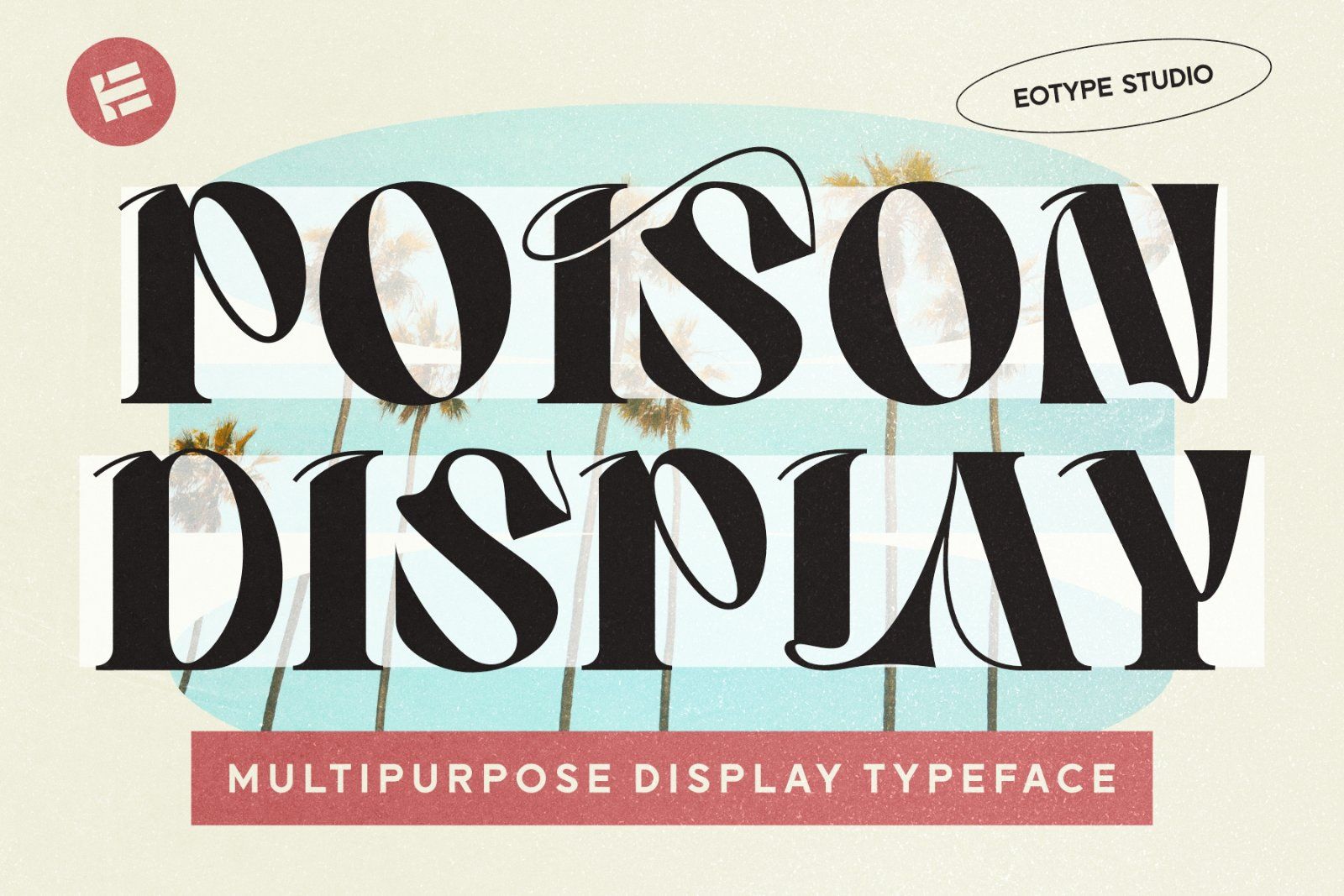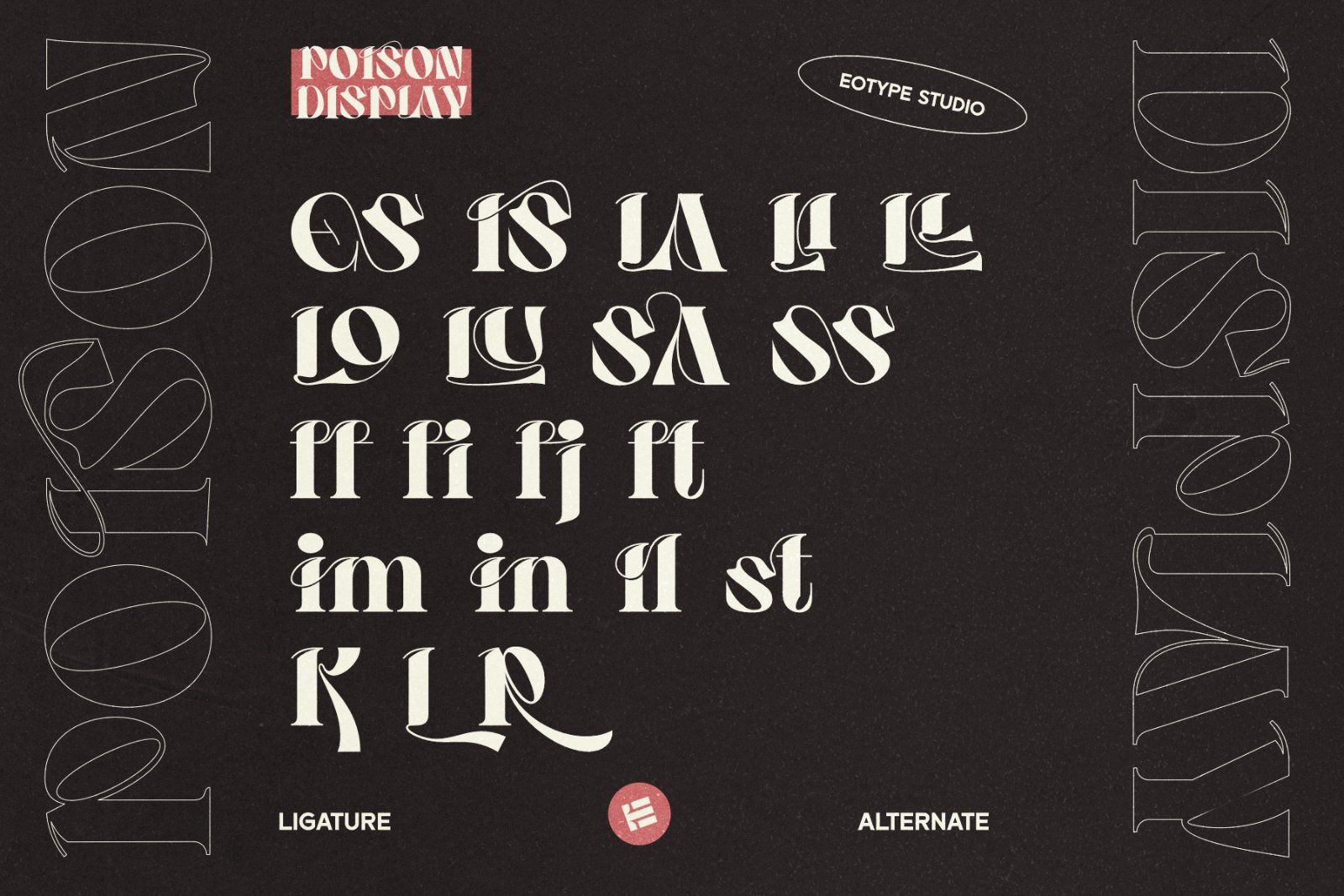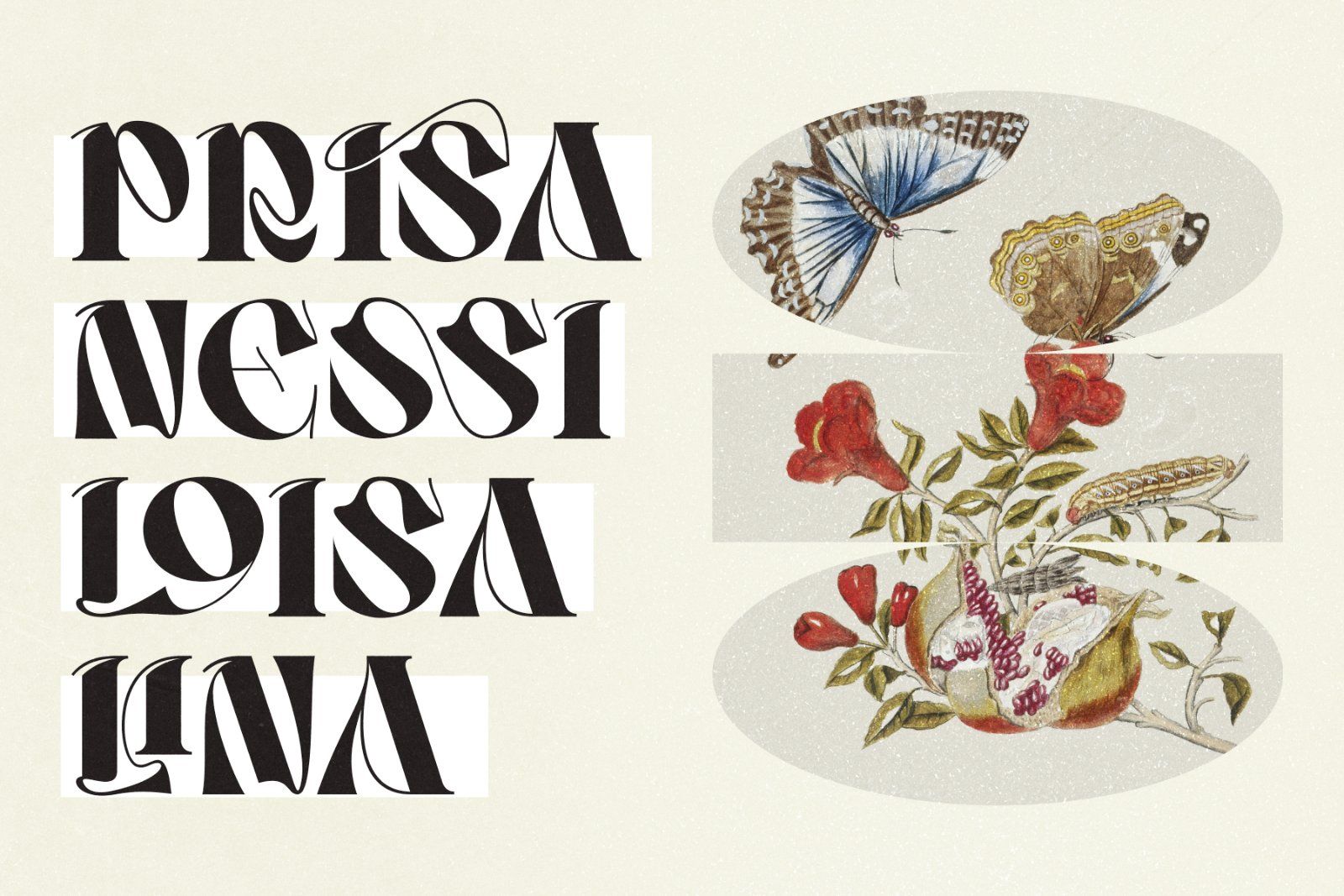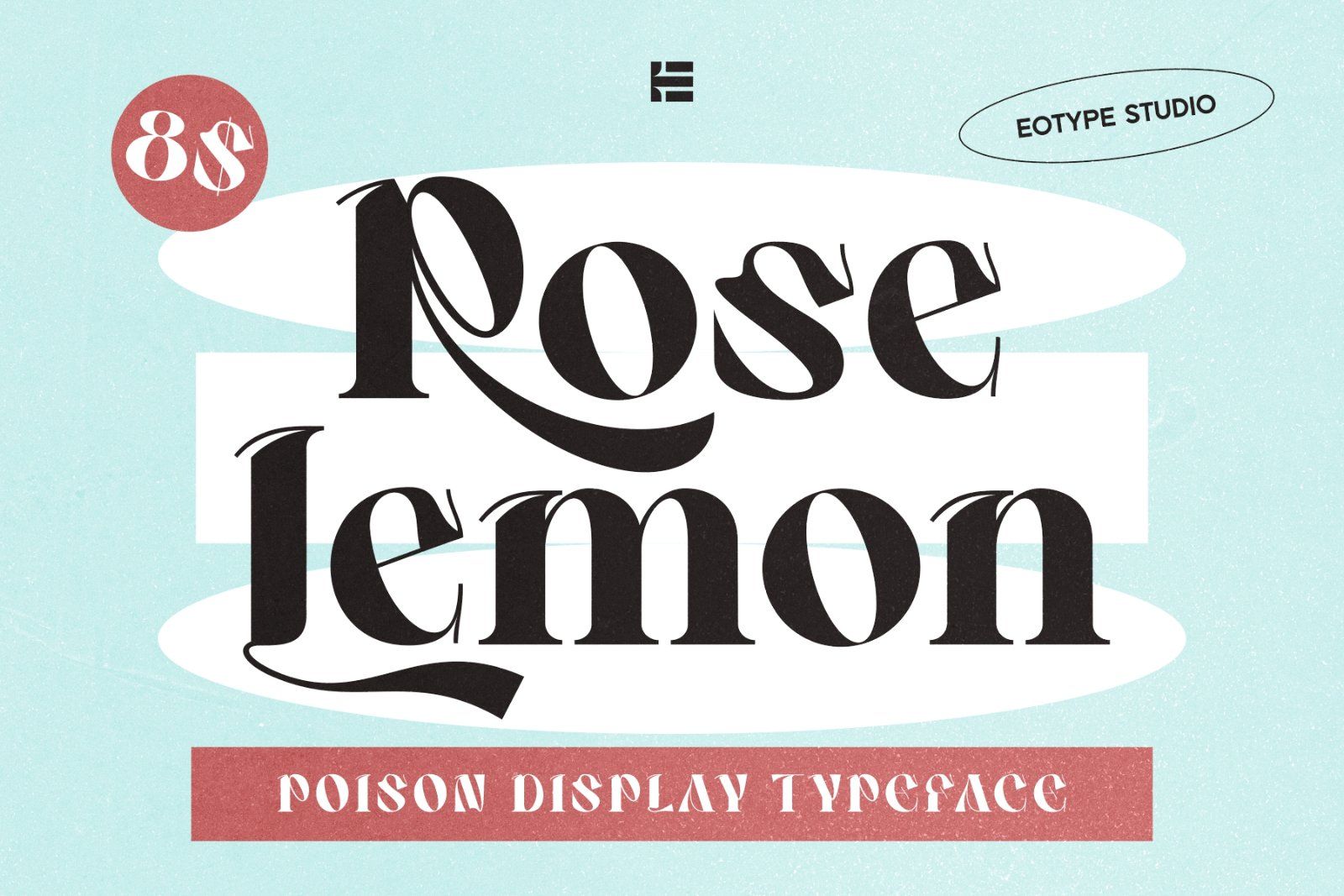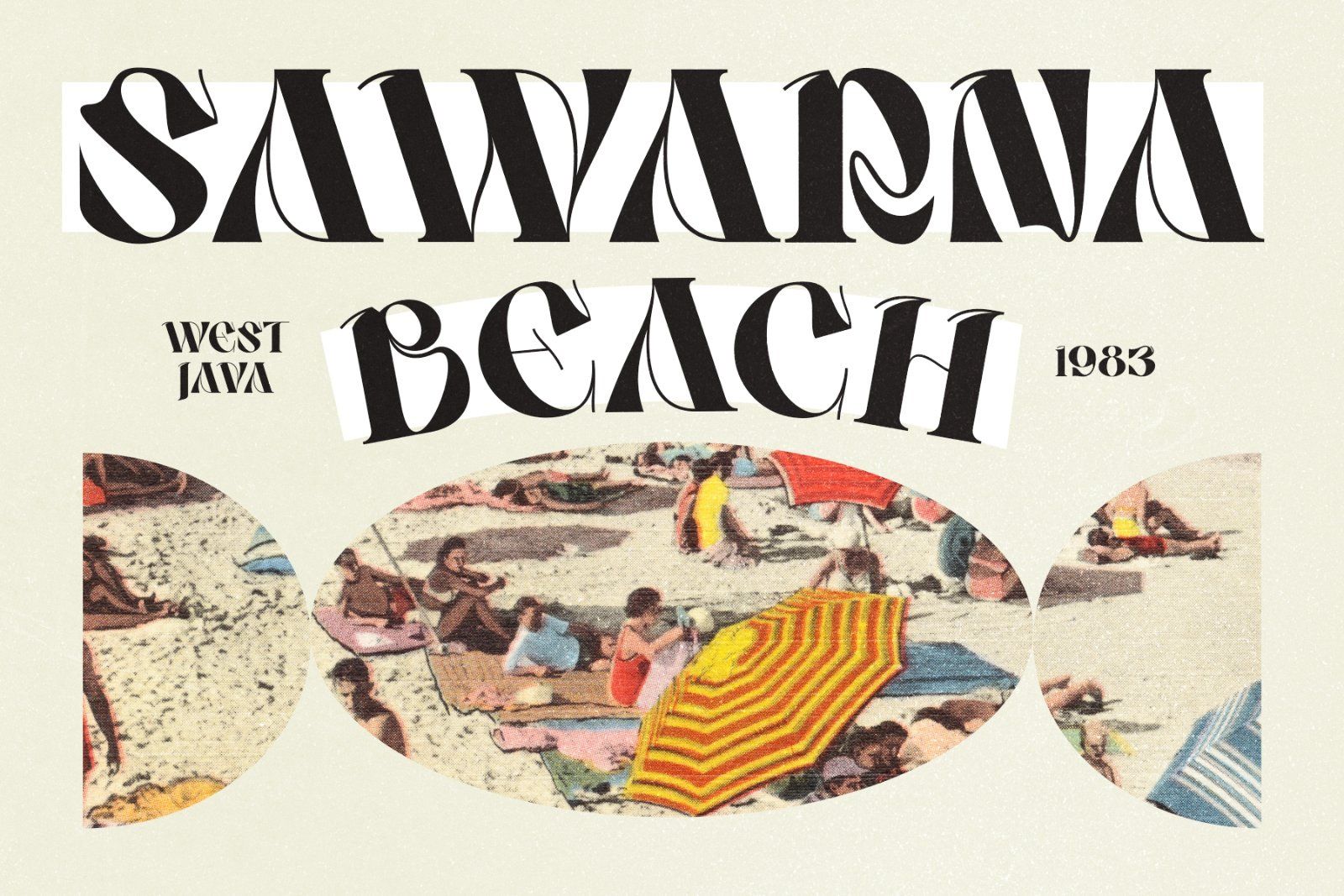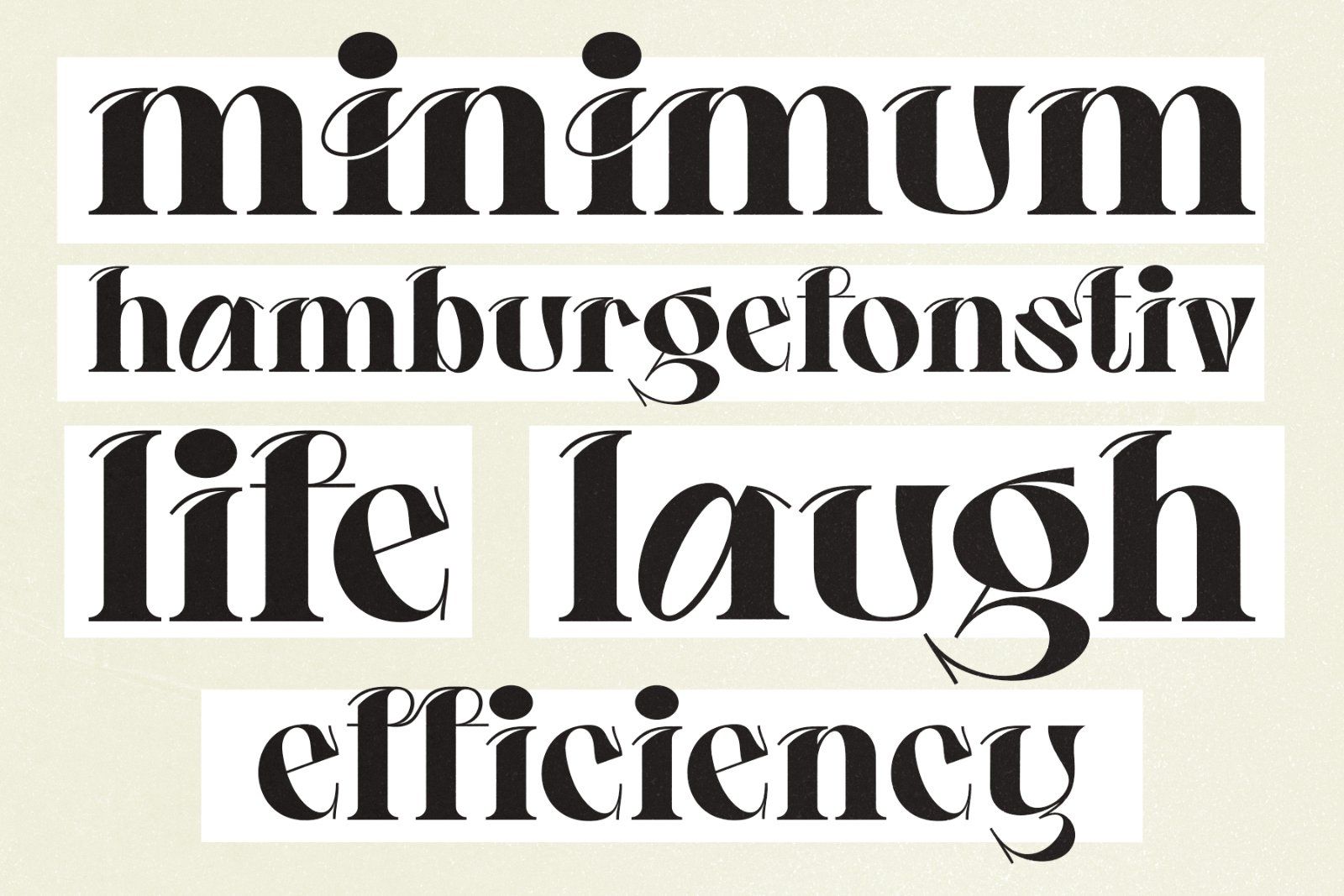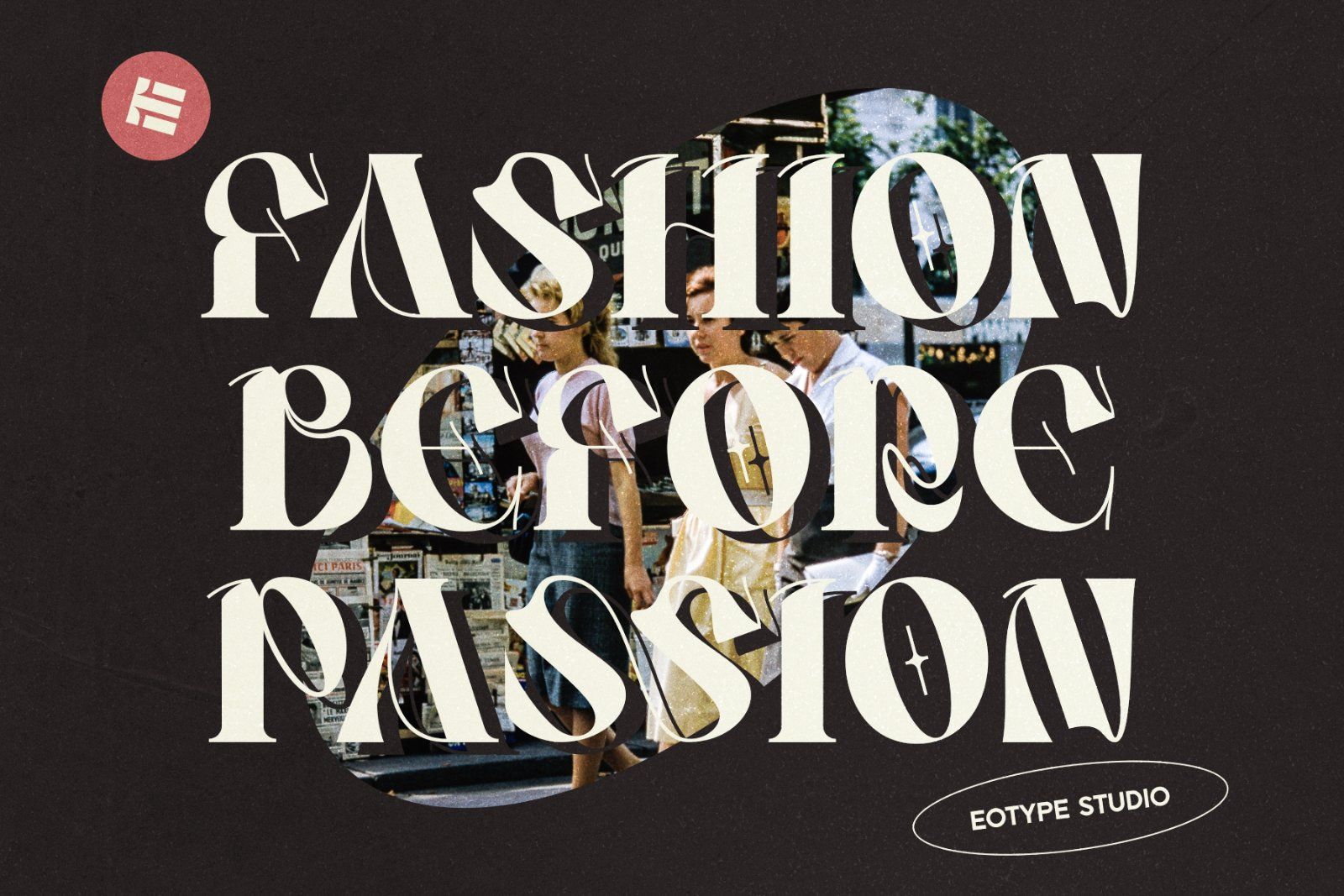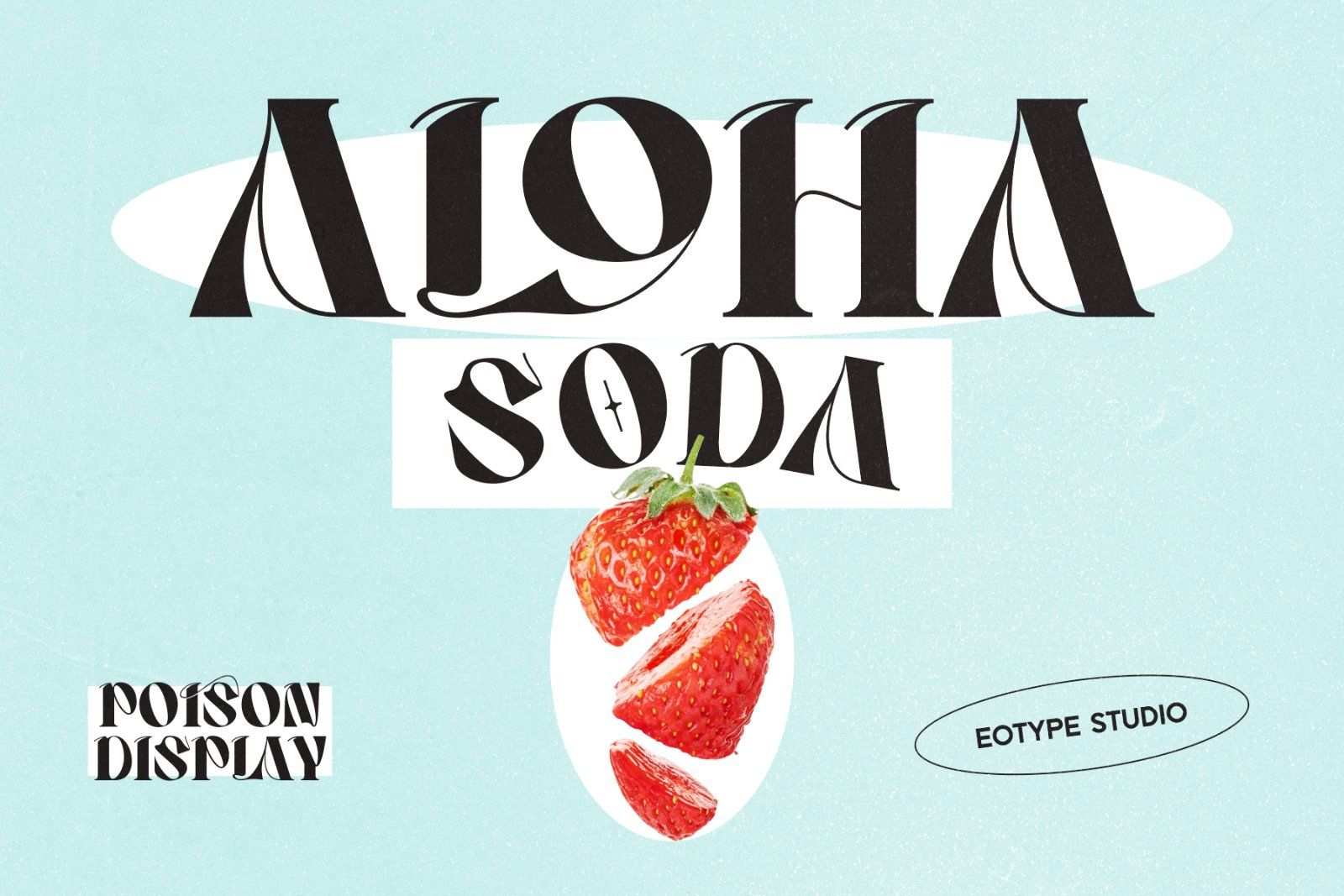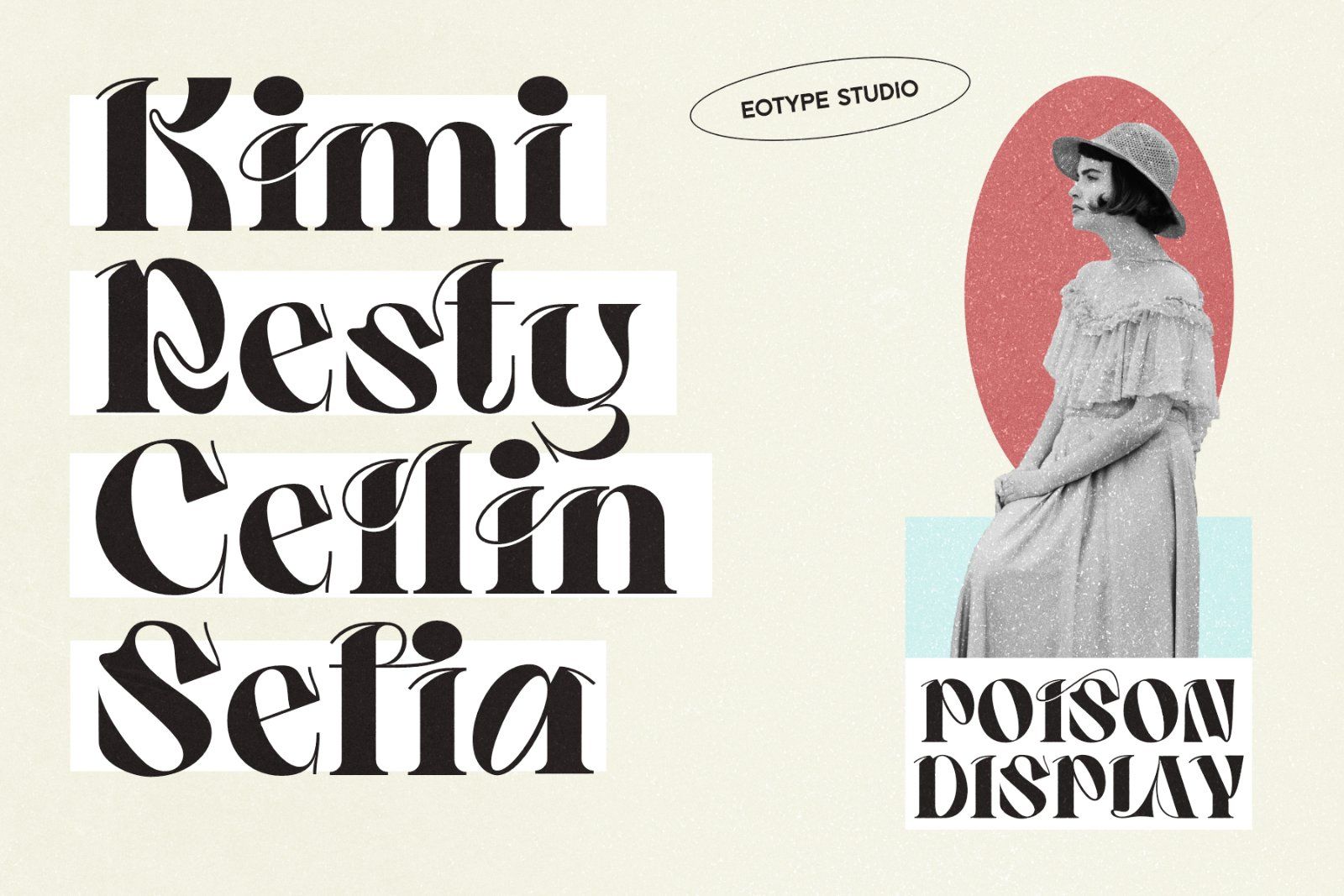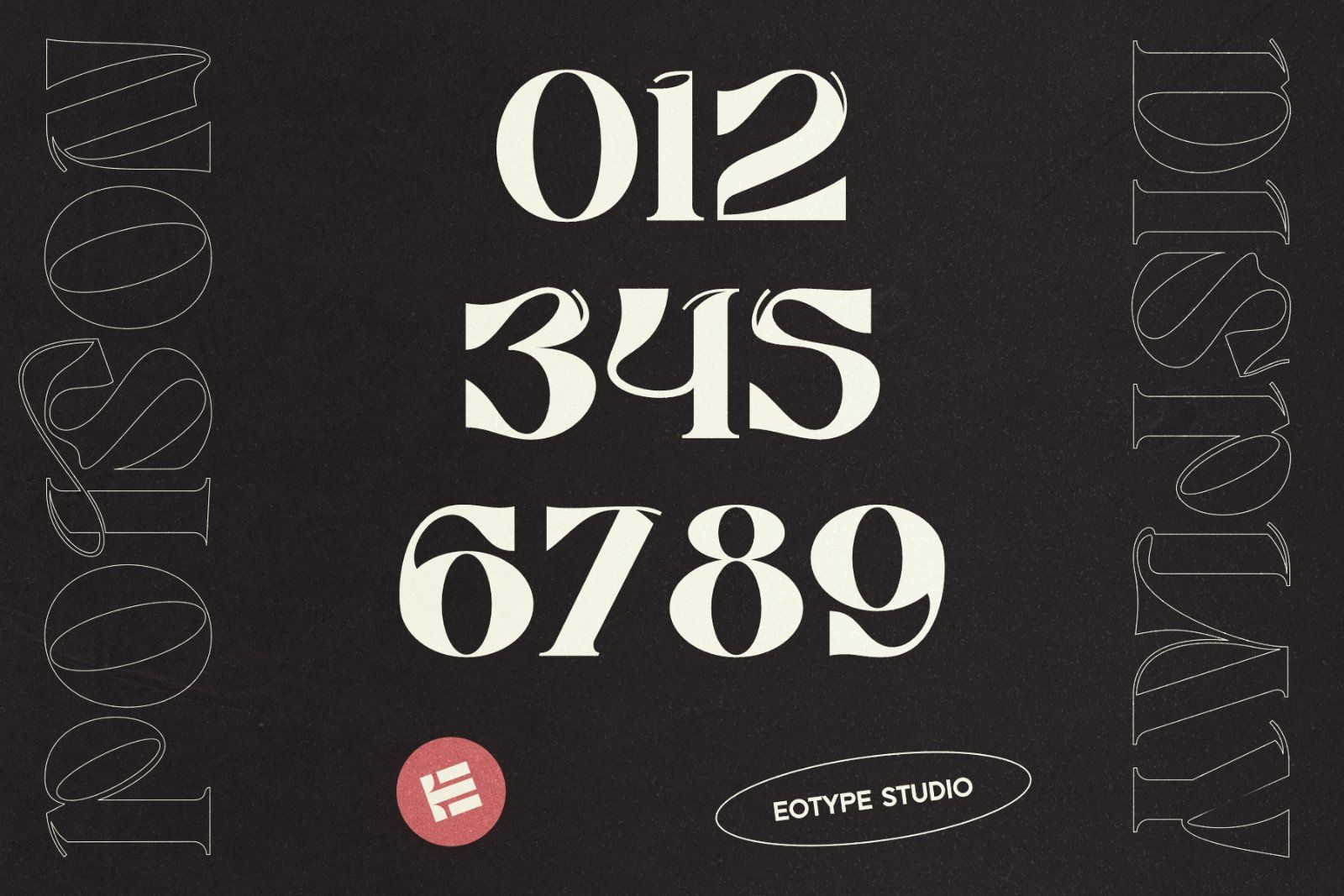
Poison Display is multipurpose display font. The Poison Display font provides a collection of glyphs with unique shapes. This font is suitable for modern vintage retro designs. You can use this font on posters, banners, logos, headline projects and more. This font features alternate, ligature and multilingual supports.